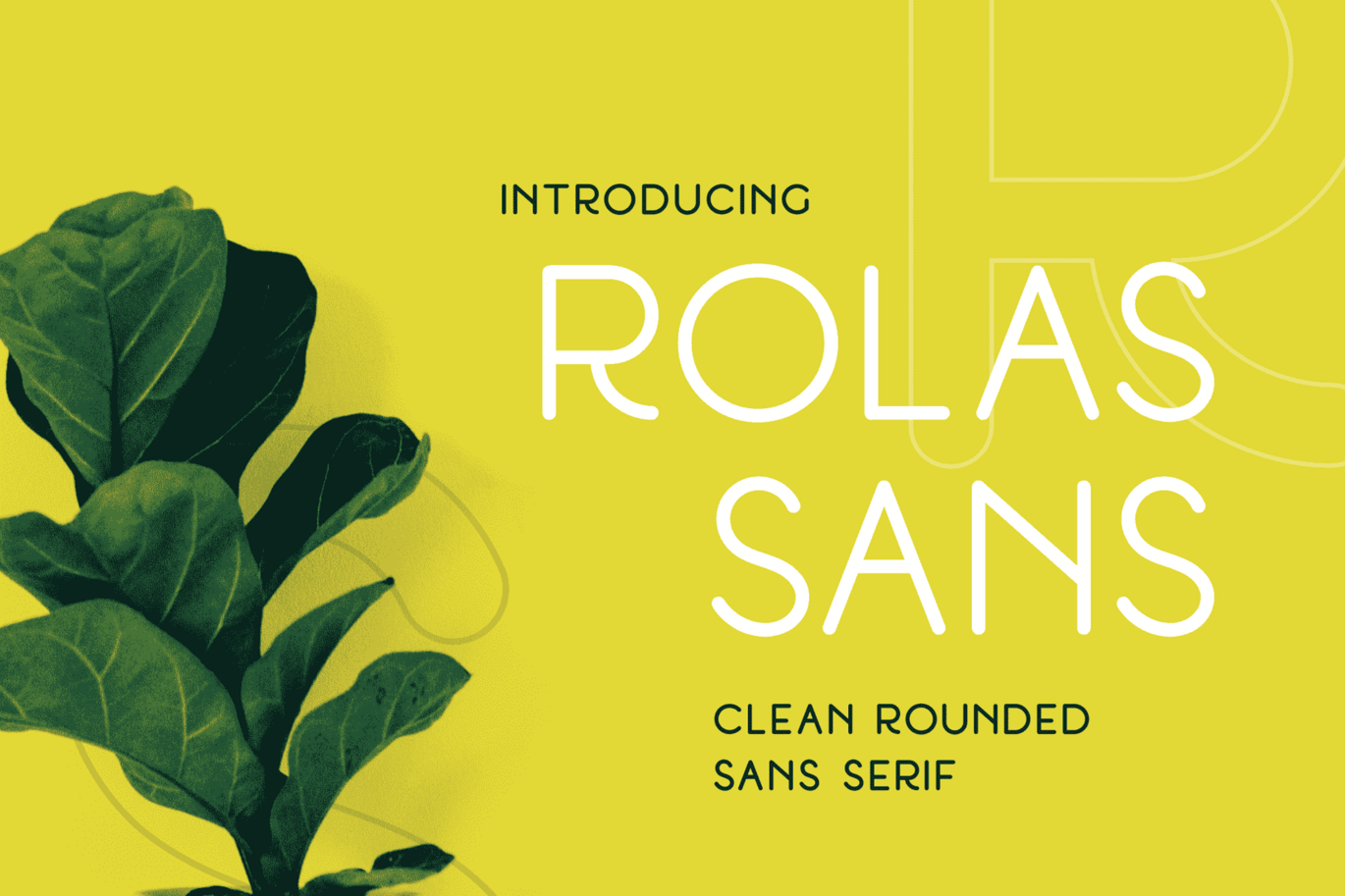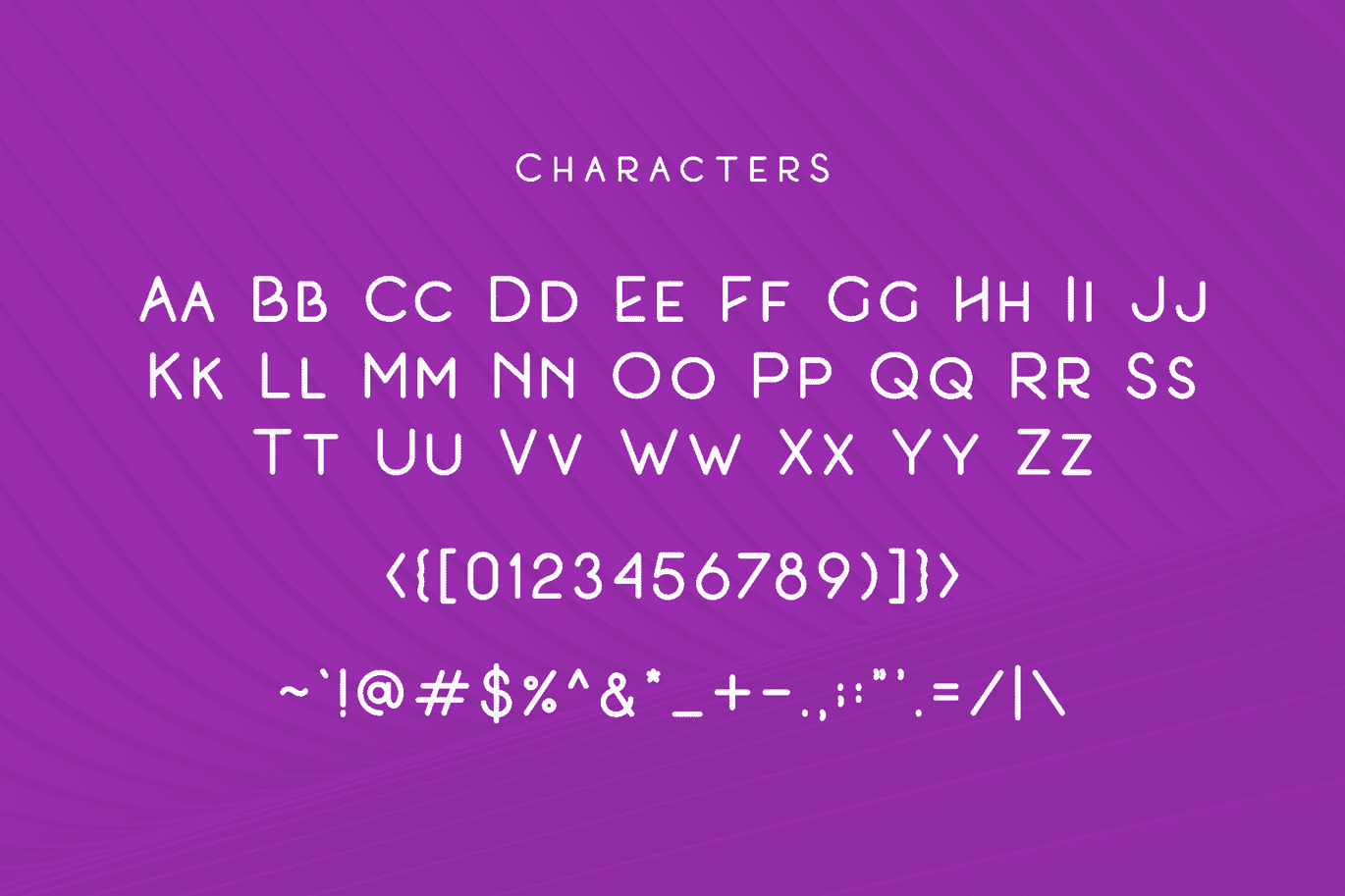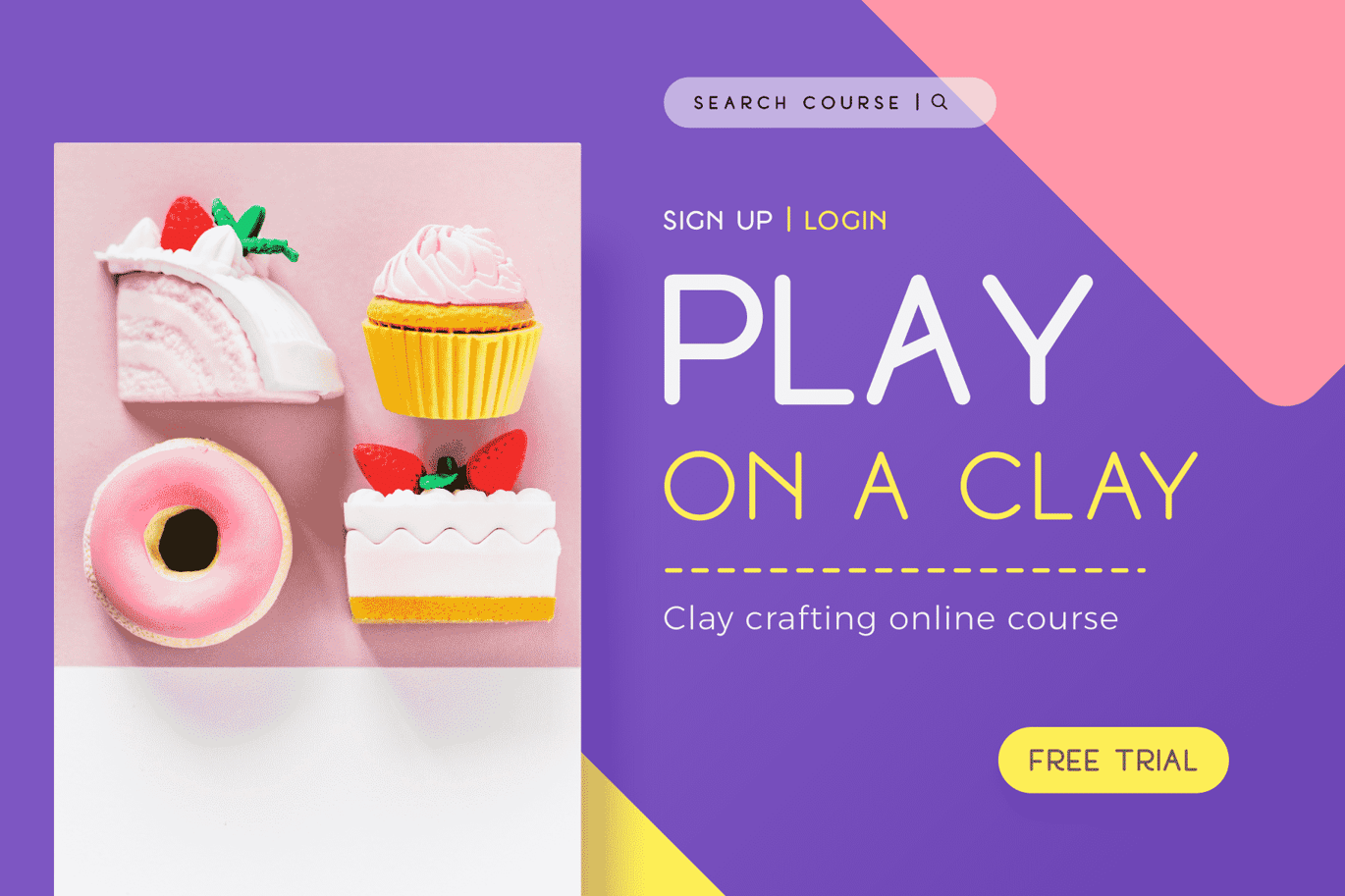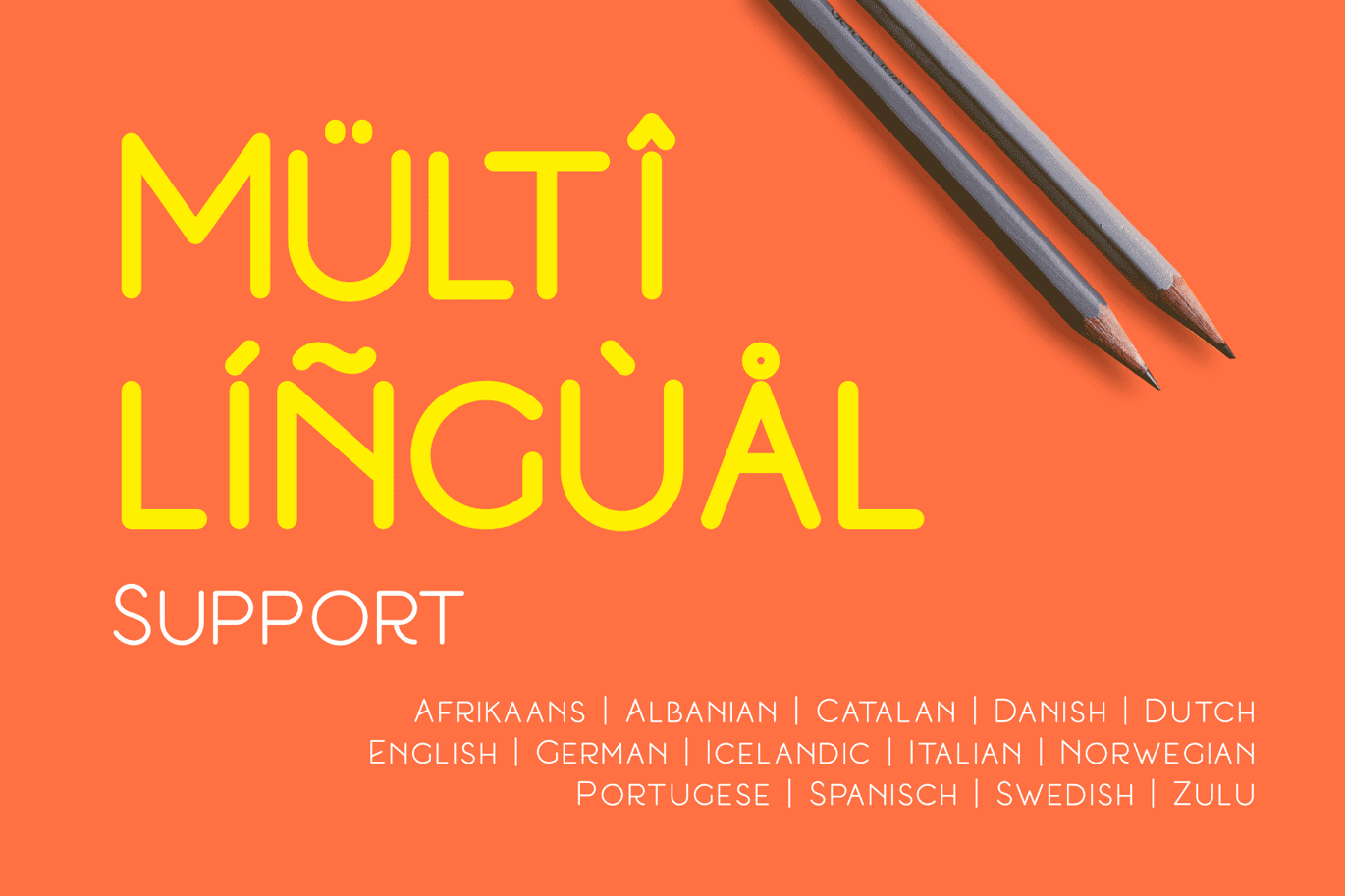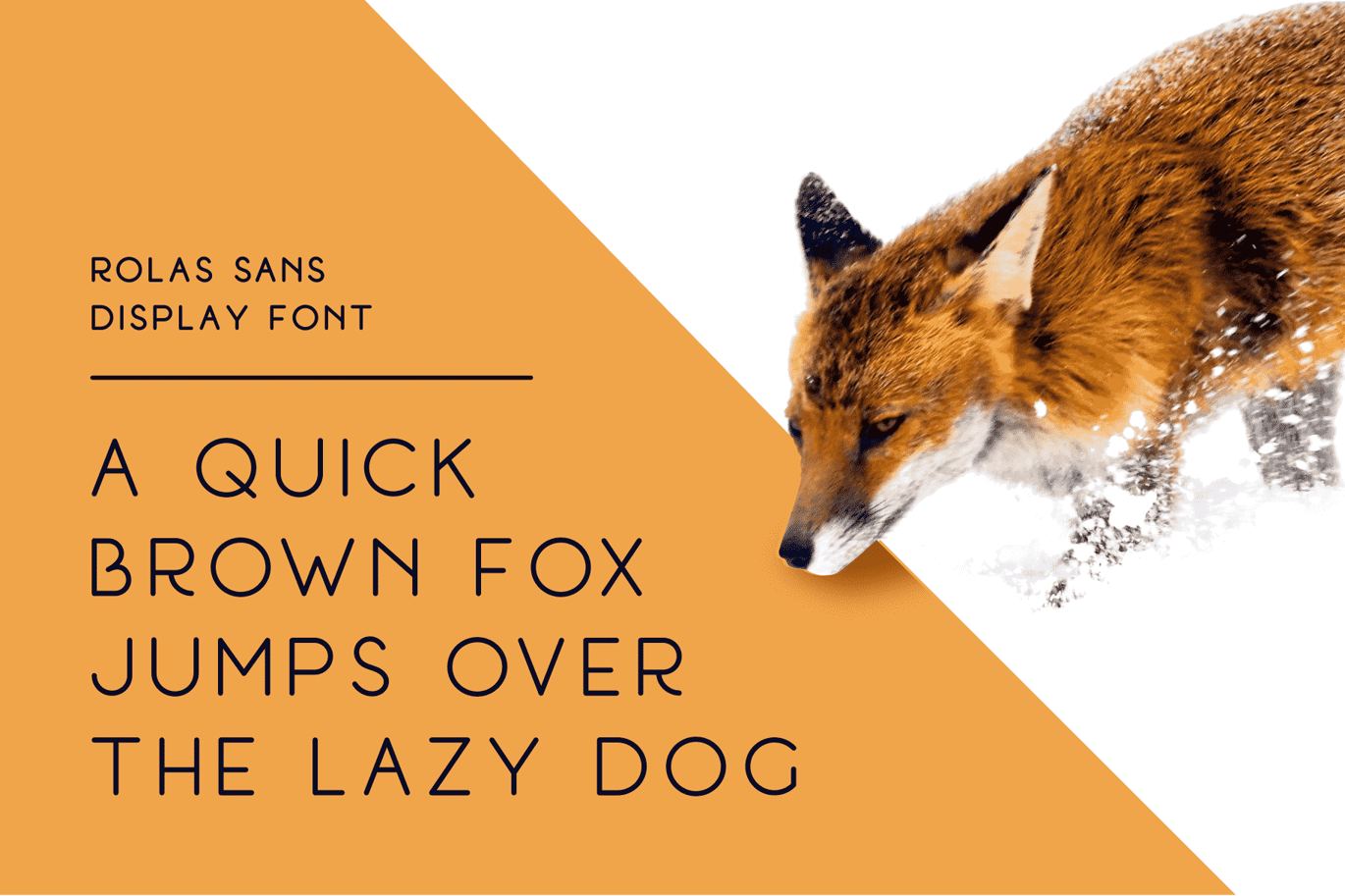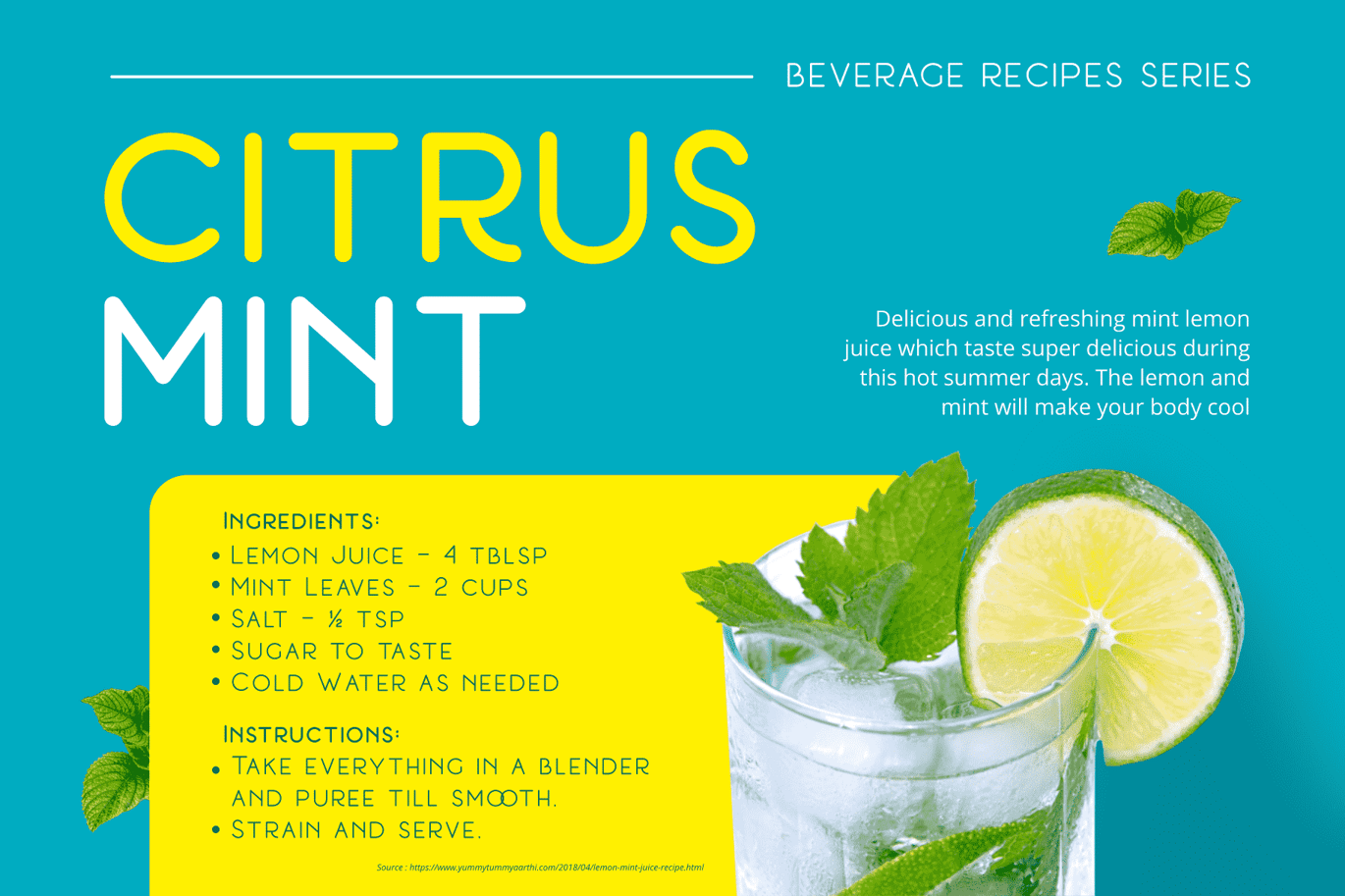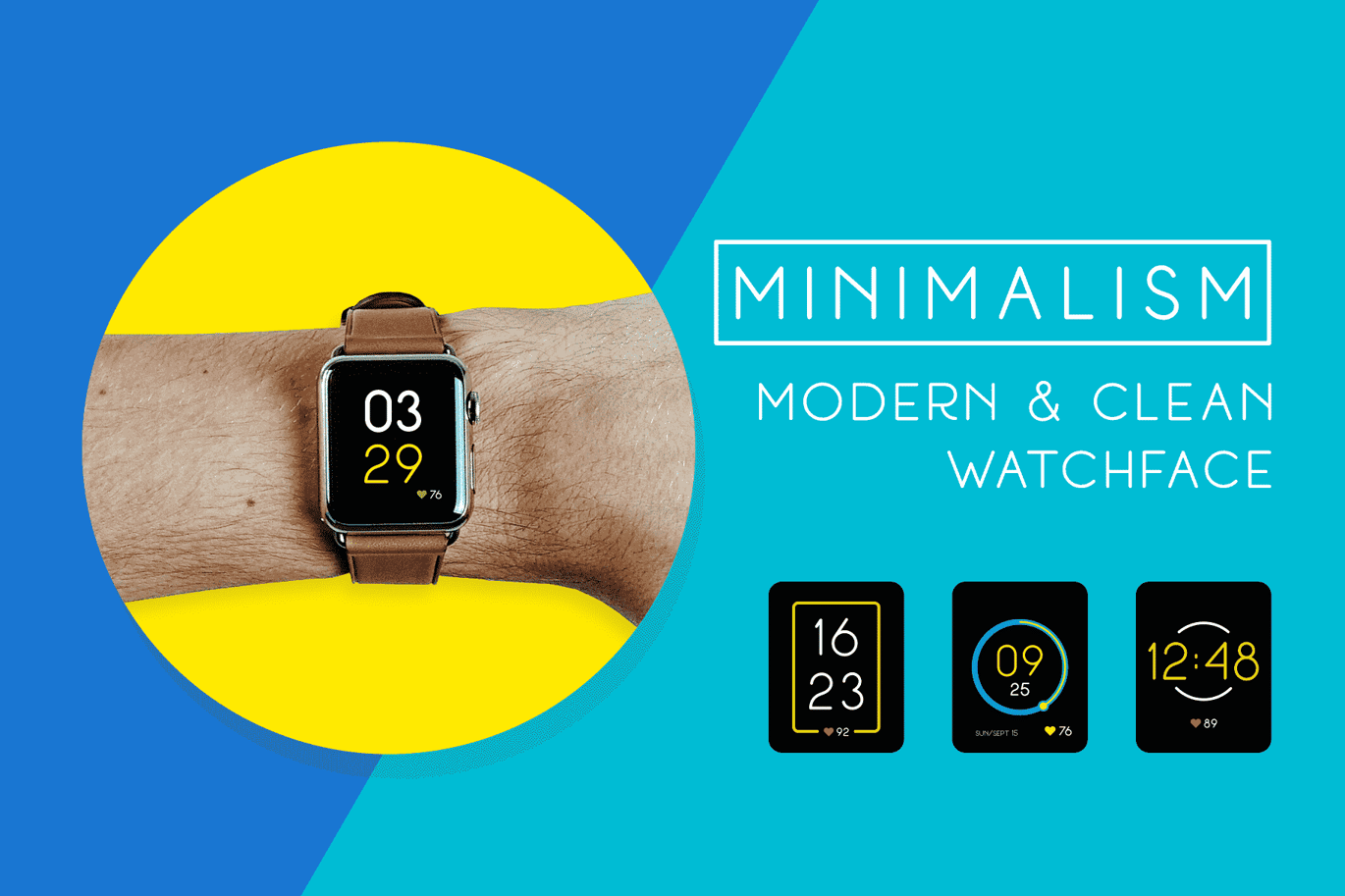
Rolas Sans – Display Font
Introducing Rolas Sans Display Font , Rolas mean twelve, because this is my twelfth font.
New rounded sans serif, clean and modern style will work great for your branding, logos, headline of magazine/ebook, and the numbers also looks good on your watch face and more.